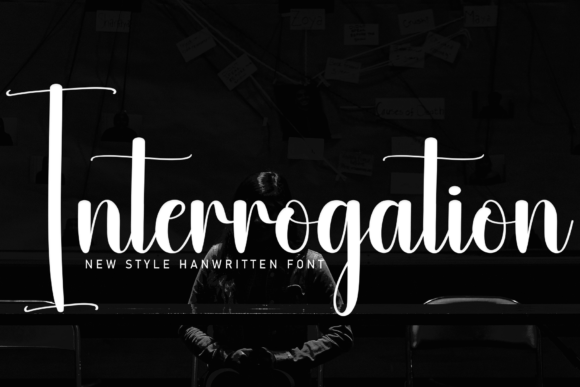
Embark on a remarkable typographic journey with Interrogation, an exquisite script font family designed to ignite your creativity.
Step into the realm of Industrial Design, where Interrogation reigns supreme, its flowing lines and charming curves adding an undeniable touch of elegance to your projects. Created by the visionary William Jhordy, this font is a masterpiece of digital artistry, capturing the essence of sophistication and fun.
Indulge in a world of endless possibilities with Interrogation, a versatile font family that effortlessly adapts to a symphony of design endeavors. From the delicate strokes of wedding invitations to the bold statements of posters, Interrogation dances across the page, captivating hearts and minds with its allure.
Immerse yourself in the warmth and friendliness of Interrogation, a font that exudes personality and charm. Its playful nature lends itself to a myriad of applications, from quirky social media graphics to enchanting branding designs. Let Interrogation be your guide as you craft visual stories that resonate with your audience.
Take a moment to explore the depths of Interrogation, a script font family that truly embodies the spirit of creativity. With its ability to transform ordinary words into works of art, Interrogation elevates your designs, making them stand out from the mundane. Trust in the power of Interrogation to add a touch of magic to your creative endeavors.